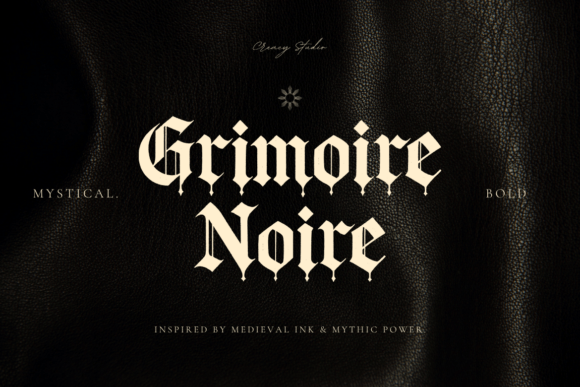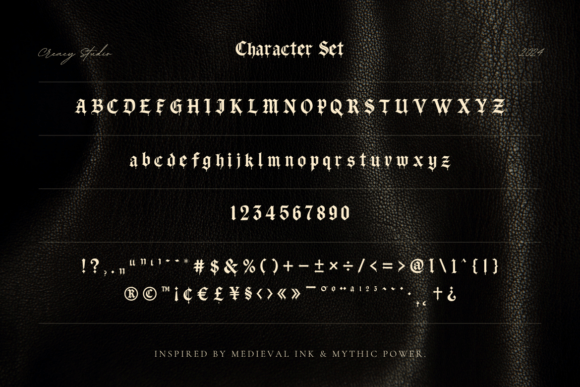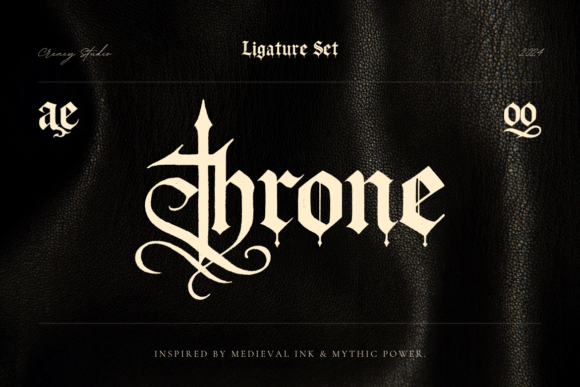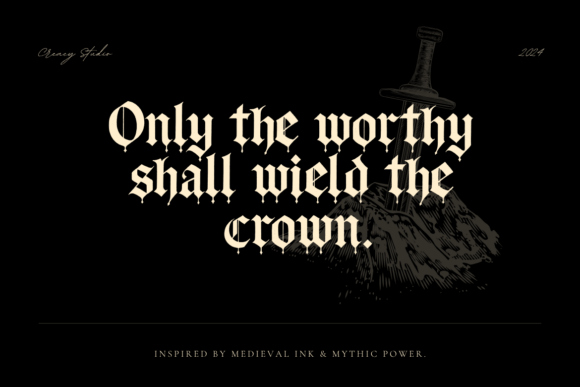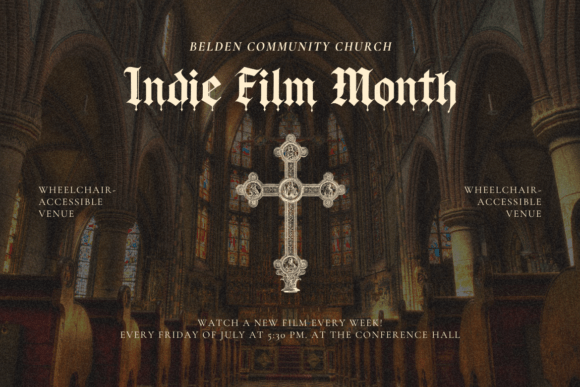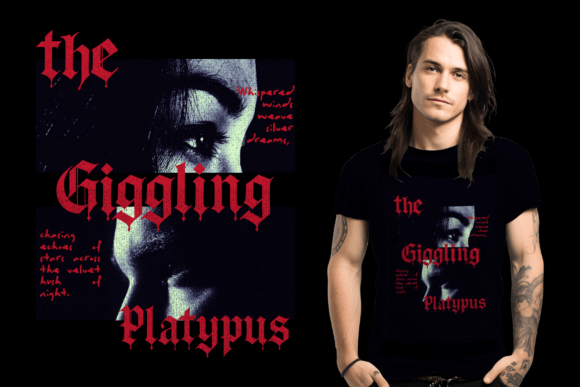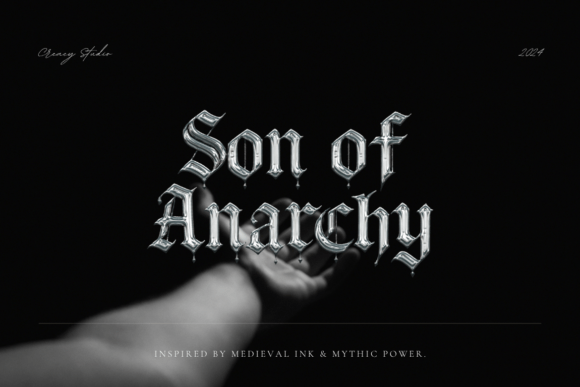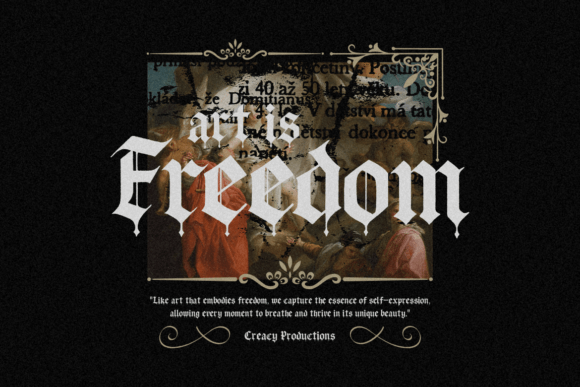
Grimoire Noir Font
Unveiling Grimoire Noir: a classic Gothic blackletter typeface that serves as your encrypted passageway to the irresistible charisma of the Medieval epoch. Using cues from age-old manuscripts, hallowed cathedral carvings, and fabled legends, Grimoire Noir seamlessly marries the robust vibrancy of Gothic strokes with the elegance of modern typography. Destined for dark fantasy motifs, immersive video game entries, gripping novel jackets, retro branding, or influential heavy-metal designs.